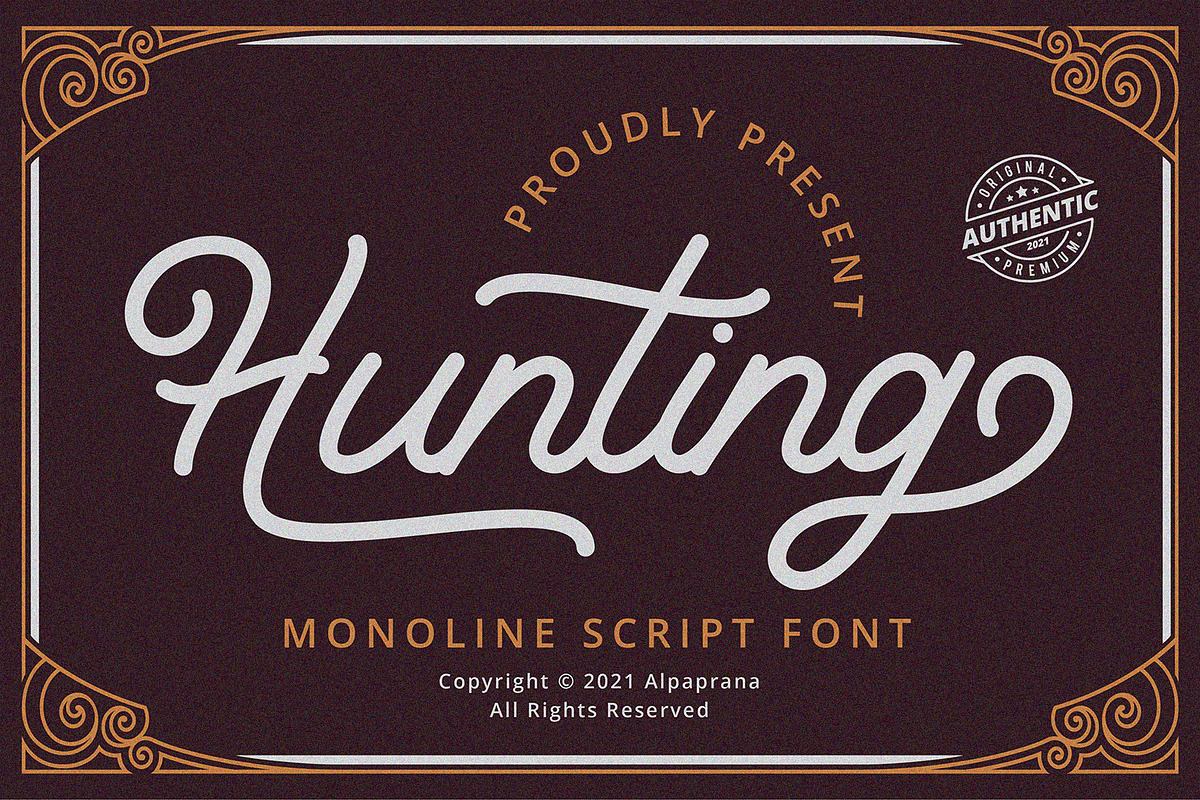
Hunting Monoline Script Font Free Download is a smooth and stylish typeface that adds an elegant, hand-drawn touch to your designs. With its consistent line weight and fluid strokes, this monoline script is perfect for logos, branding, invitations, social media graphics, and packaging. Its natural flow and sleek aesthetic give your projects a professional yet personal feel.
Whether you’re crafting a modern wedding invitation or a stylish logo, Hunting delivers a polished, handcrafted look that stands out. It’s the ideal font for designers who love combining simplicity and sophistication in their work.